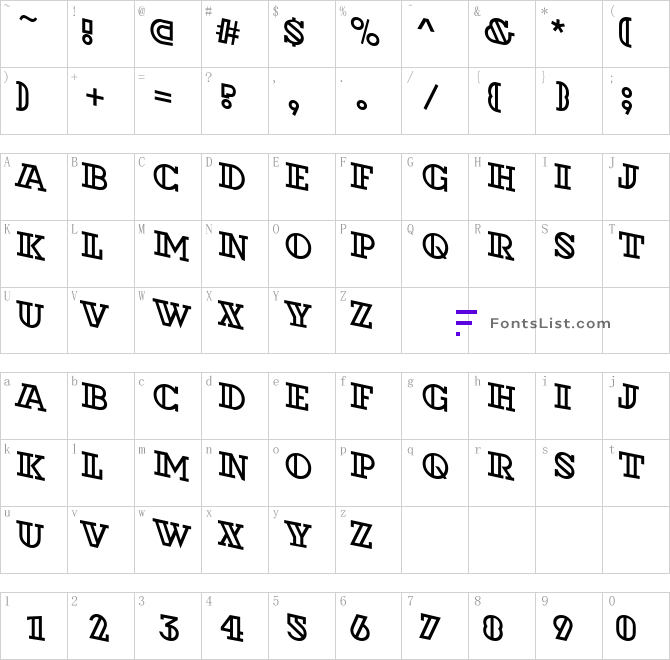
- Font Name:a_DexterOtlSpDn
- Subfamily:a_DexterOtlDecor
- Full Name:a_DexterOtlSpDn
- PostScript:ADexterOtlSpDn
a_DexterOtlSpDn.ttf is a very beautiful artistic font, a_DexterOtlSpDn.ttf is widely used in the design and printing of various books and pictures,a_DexterOtlSpDn.ttf has a strong visual impact,a_DexterOtlSpDn.ttf is a commonly used font in newspapers, magazines and books, and is used in posters, e-commerce Poster design, store design, logo design, font design and other fields.a_DexterOtlSpDn.